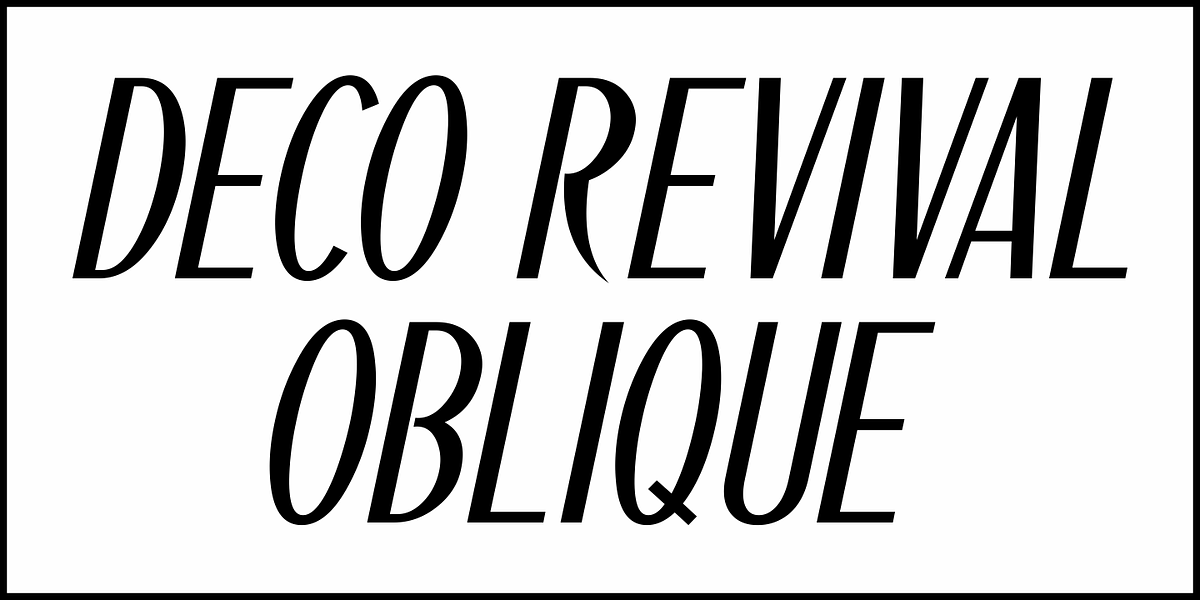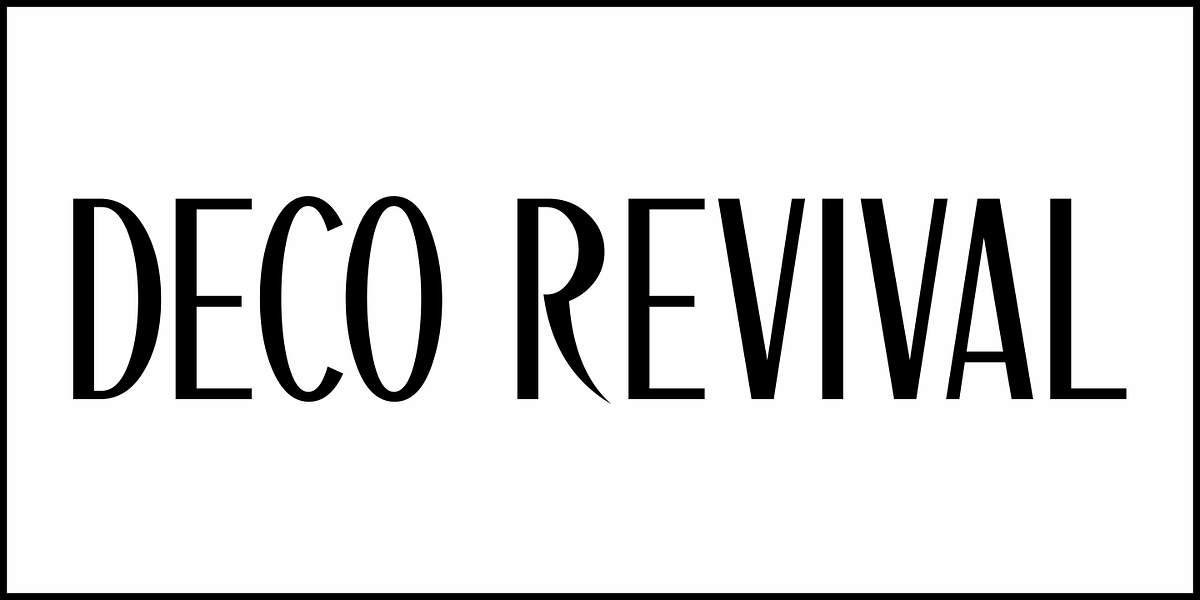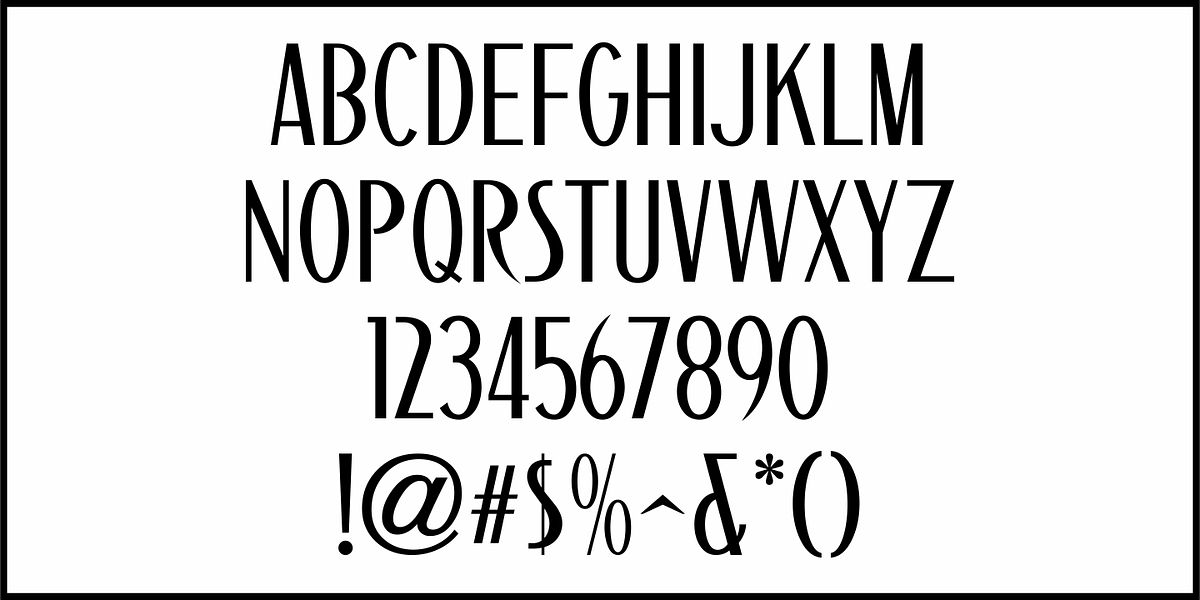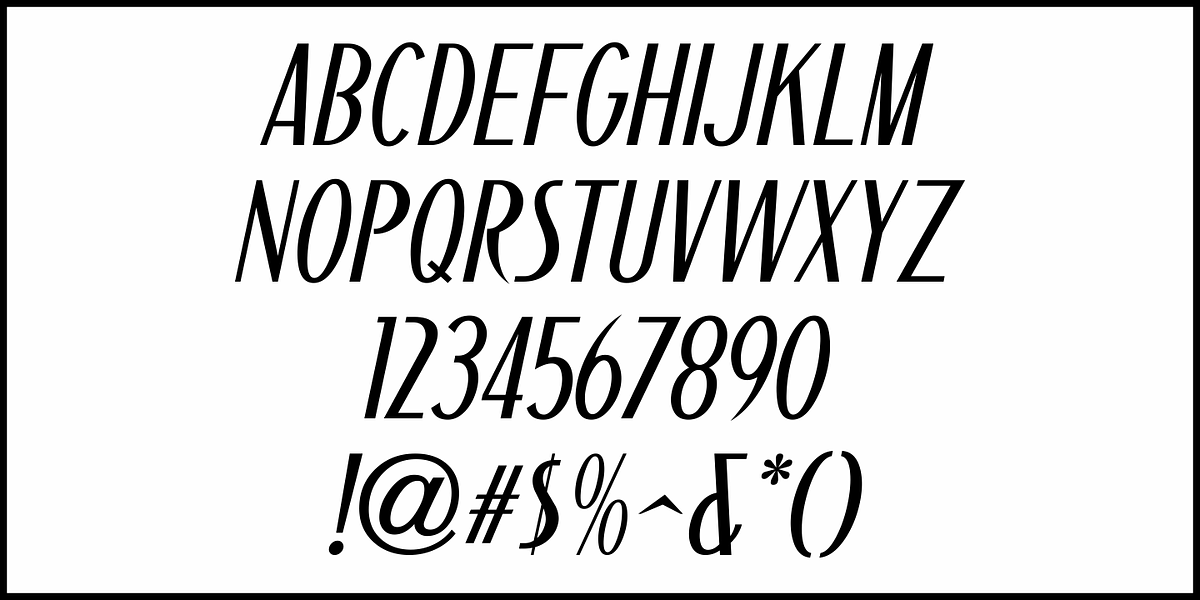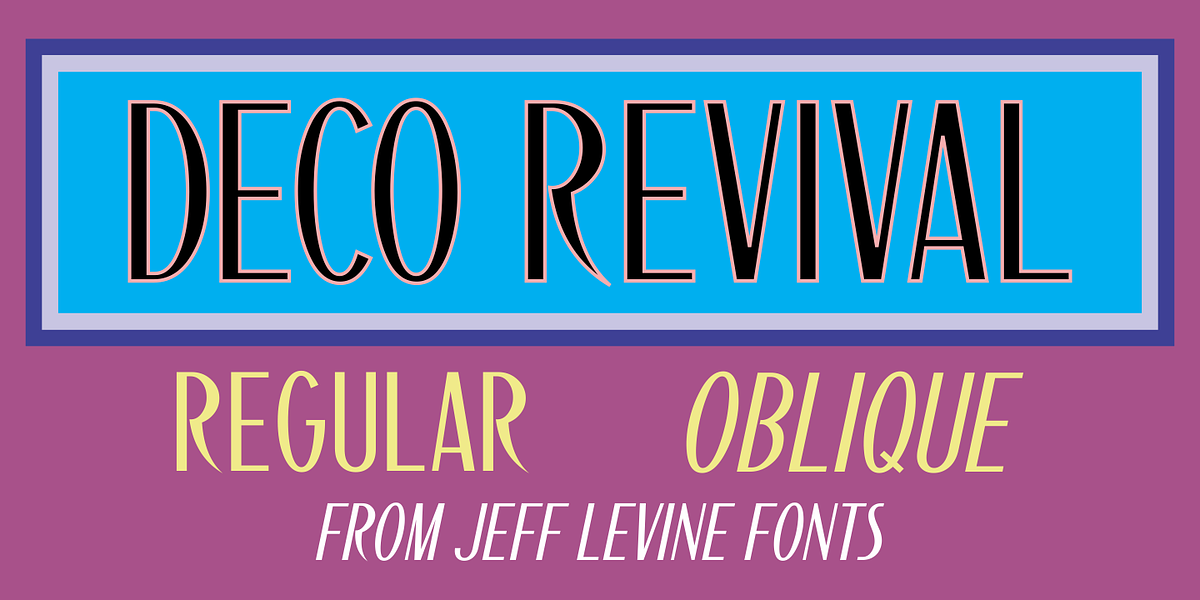
Deco Revival JNL
Some time back, a few basic characters were drawn out (possibly inspired by some vintage sheet music) and set aside for a future font project.
Despite being incomplete for a few years, this once-forgotten design is now available as Deco Revival JNL, in both regular and oblique versions.